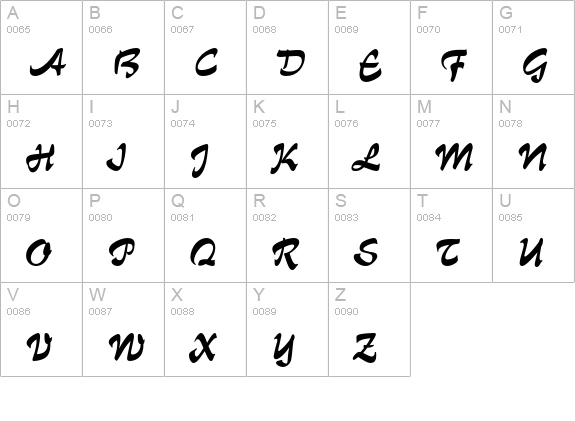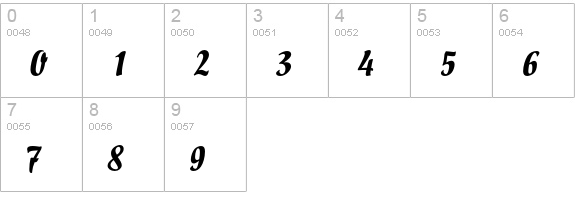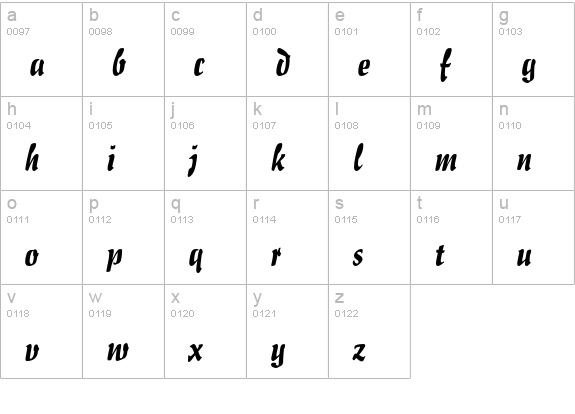
Impuls Font Details
Impuls is a modern and stylish font that is sure to make a bold statement in any design project. With its clean lines and sharp edges, this font exudes confidence and professionalism. Whether you're designing a logo, creating a brochure, or working on a website, Impuls will instantly elevate your work to the next level. What sets Impuls apart is not only its sleek design, but also the fact that it is completely free. That's right, this high-quality font can be downloaded at no cost from FontsMarket.com. We believe that great design should be accessible to all, and with Impuls, you can create stunning visuals without breaking the bank. Impuls is incredibly versatile, making it perfect for a wide range of applications. Its bold and strong presence makes it ideal for headlines and titles, while its legibility ensures that it remains readable even in smaller sizes. Whether you're going for a modern and edgy look or a more refined and elegant aesthetic, Impuls has got you covered. With its extensive character set, Impuls supports multiple languages, allowing you to reach a global audience with ease. Its compatibility with various design software also ensures a seamless integration into your creative process, saving you time and effort. Download Impuls today from FontsMarket.com and unleash your creativity. With this free font in your design arsenal, the possibilities are endless. So go ahead, make a lasting impression with Impuls font.